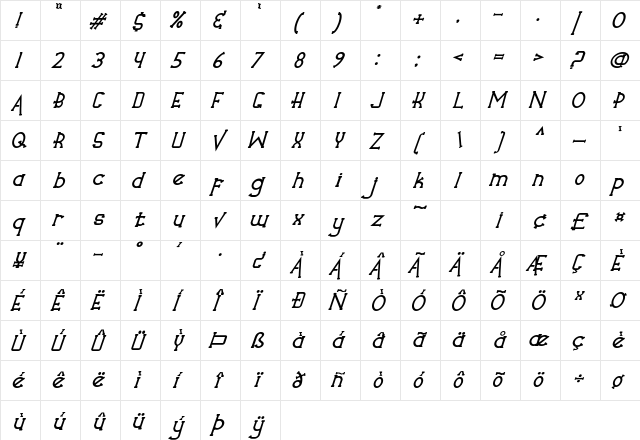
Veruzza Italic
Design Context for Veruzza Typeface
Veruzza offers clean, dependable letterforms without strong stylistic allegiance, making it a practical choice for designers who need flexibility. The slanted form adds forward momentum and visual energy.
Pro Tip: Use Veruzza for emphasis, pull quotes, and subheadings where its slanted energy can add rhythm to the layout.